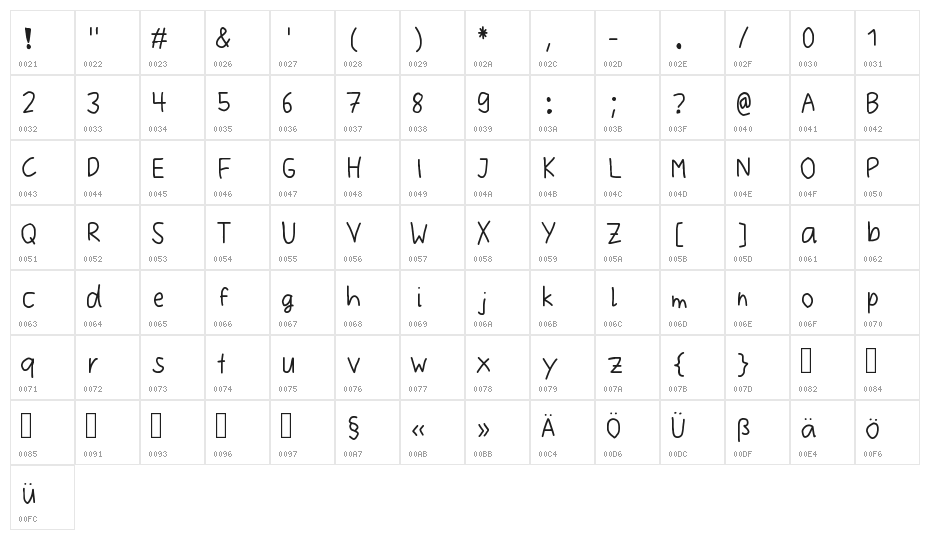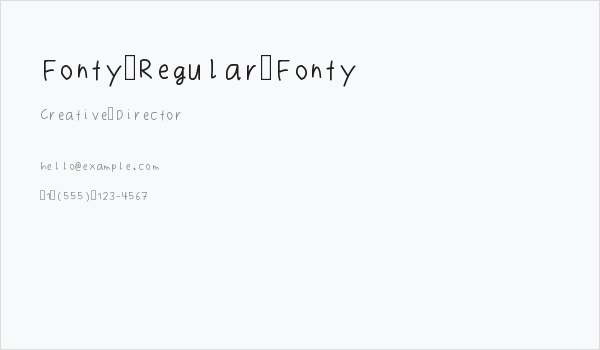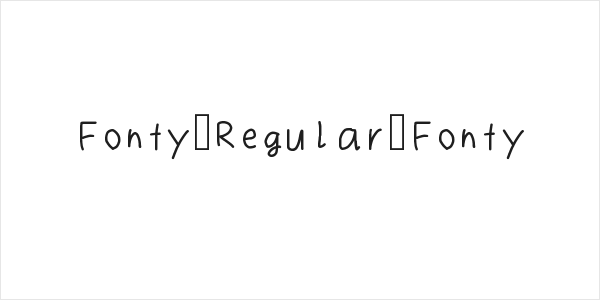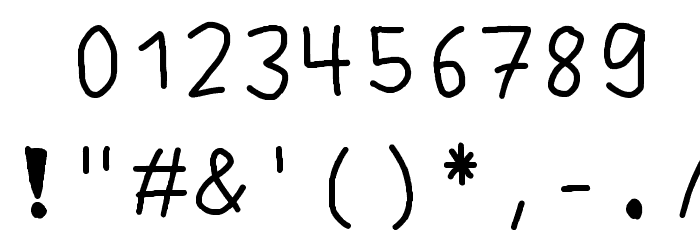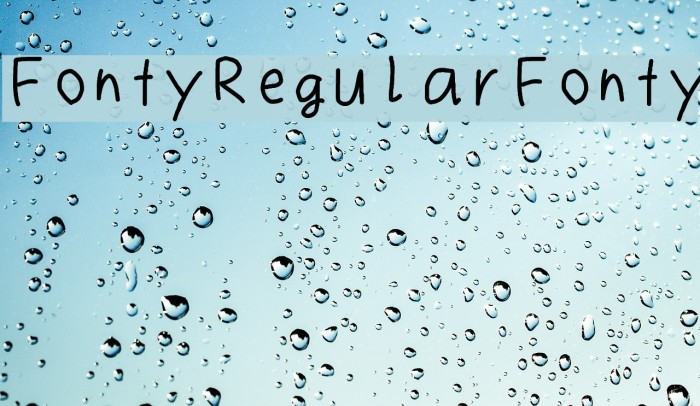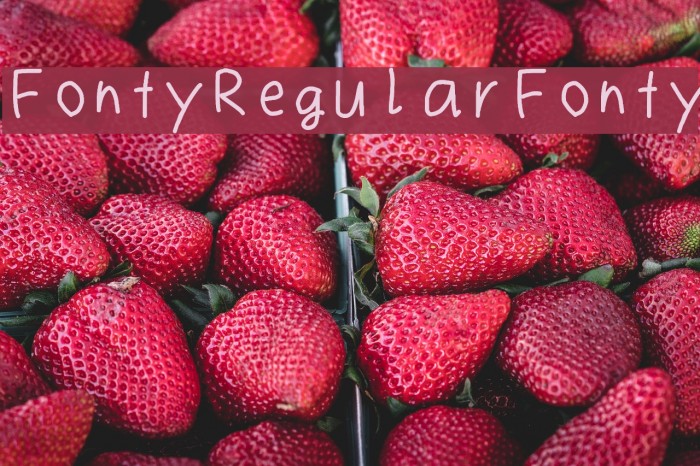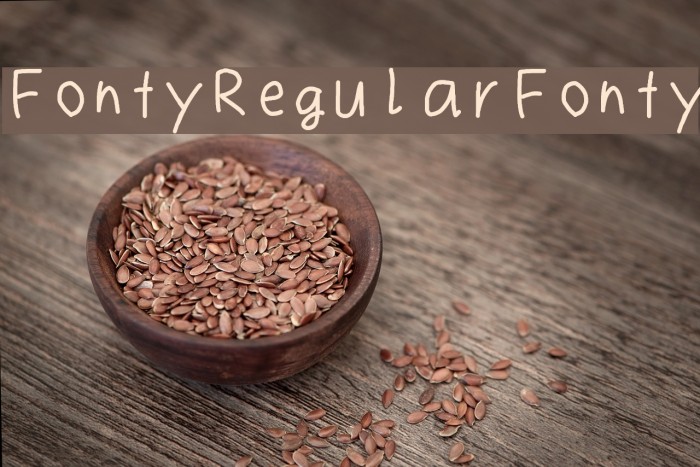
Fonty Regular Fonty Font
This font features a playful and casual handwritten style, characterized by its irregular strokes and informal appearance. The letters have a consistent flow, with rounded edges and a slightly uneven baseline that adds to its charm. The uppercase and lowercase letters maintain a cohesive look, while the numerals and special characters complement the overall design. This font exudes a friendly and approachable vibe, making it ideal for projects that require a personal touch. Its simplicity and readability ensure it remains effective in various applications.
| Use Case | Headlines, Informal text, Personal projects |
| Proposed Projects | Ideal for greeting cards, children's books, casual invitations, and personal branding. |